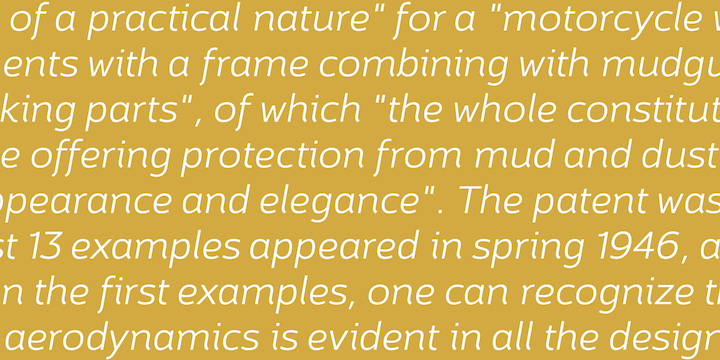
Brisko Sans
Brisko Sans is a sans serif font family. This typeface has ten styles and was published by Tour de Force Font Foundry.
Brisko Sans is simple sans serif font family that comes in 5 weights with matching Italics.
It is very suitably for longer texts in all size varieties as well for any other typographic use.
Contain elements that make whole font family characteristic and distinguish.
Brisko Sans is fully applicable, legible and discrete font family and with own attributes it is good recommendation for different kind of web and print projects.